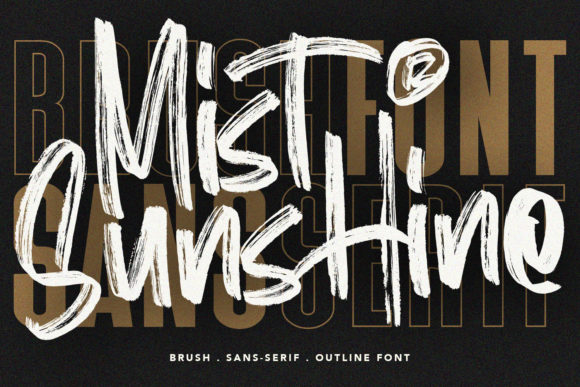
Unleash the vibrant personality of your designs with Mist Sunshine Font, the bold and captivating display font that commands attention. Each letter boasts a thick, brushed texture, exuding a sense of drama and originality that will elevate your designs to new heights. Immerse yourself in a world of creative possibilities as you witness your words come alive with a unique charm.
Mist Sunshine Font is not just a font; it's a statement piece that will transform your projects into unforgettable masterpieces. Its bold presence is perfect for headlines, posters, branding, social media graphics, and any project that demands a touch of audacity. Let your designs radiate with the confidence and charisma that only Mist Sunshine Font can bring.
With Mist Sunshine Font, you'll never have to settle for ordinary again. Dive into a world of limitless creativity, where your designs will captivate and inspire. Let your imagination soar and create designs that leave a lasting impression. Embrace the boldness, embrace the originality, and embrace the Mist Sunshine Font.